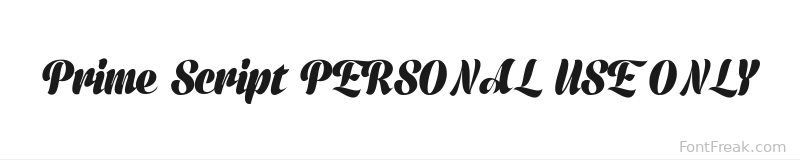
Prime Script PERSONAL USE ONLY
Prime Script PERSONAL USE ONLY by Mans Greback is a stunning script font that exudes elegance and charm. This font falls into the category of handwritten scripts, characterized by its fluid and artistic strokes. The design features a moderate stroke weight with a beautiful contrast that lends a sense of sophistication and warmth to any text. The flowing curves and graceful connections between letters create a natural rhythm, making it ideal for various creative projects. The slightly condensed spacing enhances readability while maintaining an artistic flair.
This font is perfect for wedding invitations, where its romantic style can evoke emotion and set the tone for a special day. It also shines in greeting cards, offering a personal touch that resonates with recipients. Additionally, Prime Script can elevate restaurant menus, adding a touch of class that reflects an establishment's ambiance. Content creators will find it useful for social media graphics, helping to create visually appealing posts that capture attention. Graphic designers can leverage this font in branding materials, where a unique script can differentiate a business.
Target audiences for Prime Script include graphic designers, small business owners, and content creators looking for a distinctive typeface that enhances their projects. Its versatility and elegance make it a valuable addition to any design toolkit.
What sets the Prime Script PERSONAL USE ONLY font apart is its unique blend of sophistication and approachability. Unlike many standard script fonts, this typeface maintains legibility without sacrificing style. Its artistic flair can transform ordinary text into something special, making it a standout choice for personal projects. For those interested, the Prime Script PERSONAL USE ONLY font free download is a fantastic opportunity to incorporate this unique design into your creative endeavors.